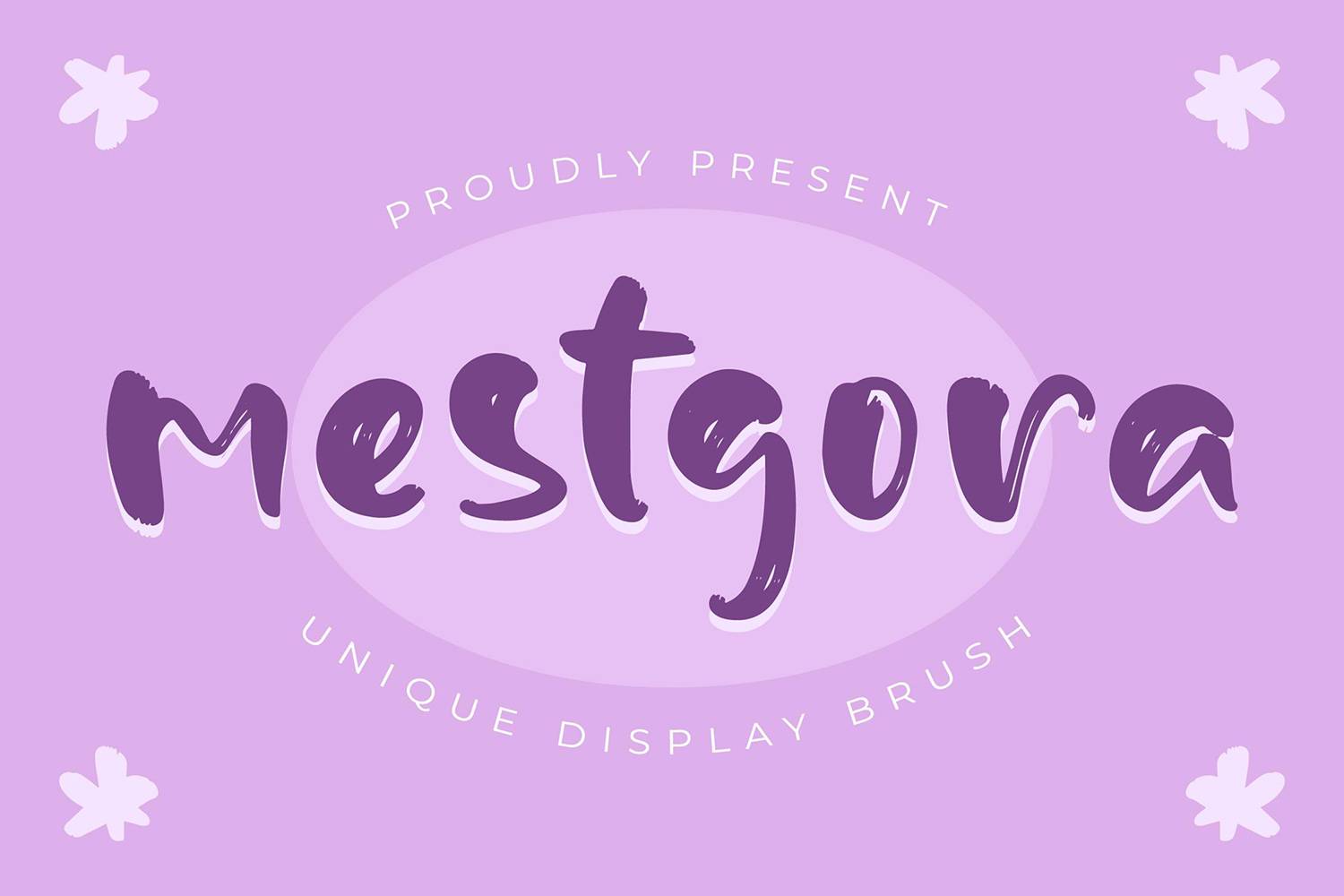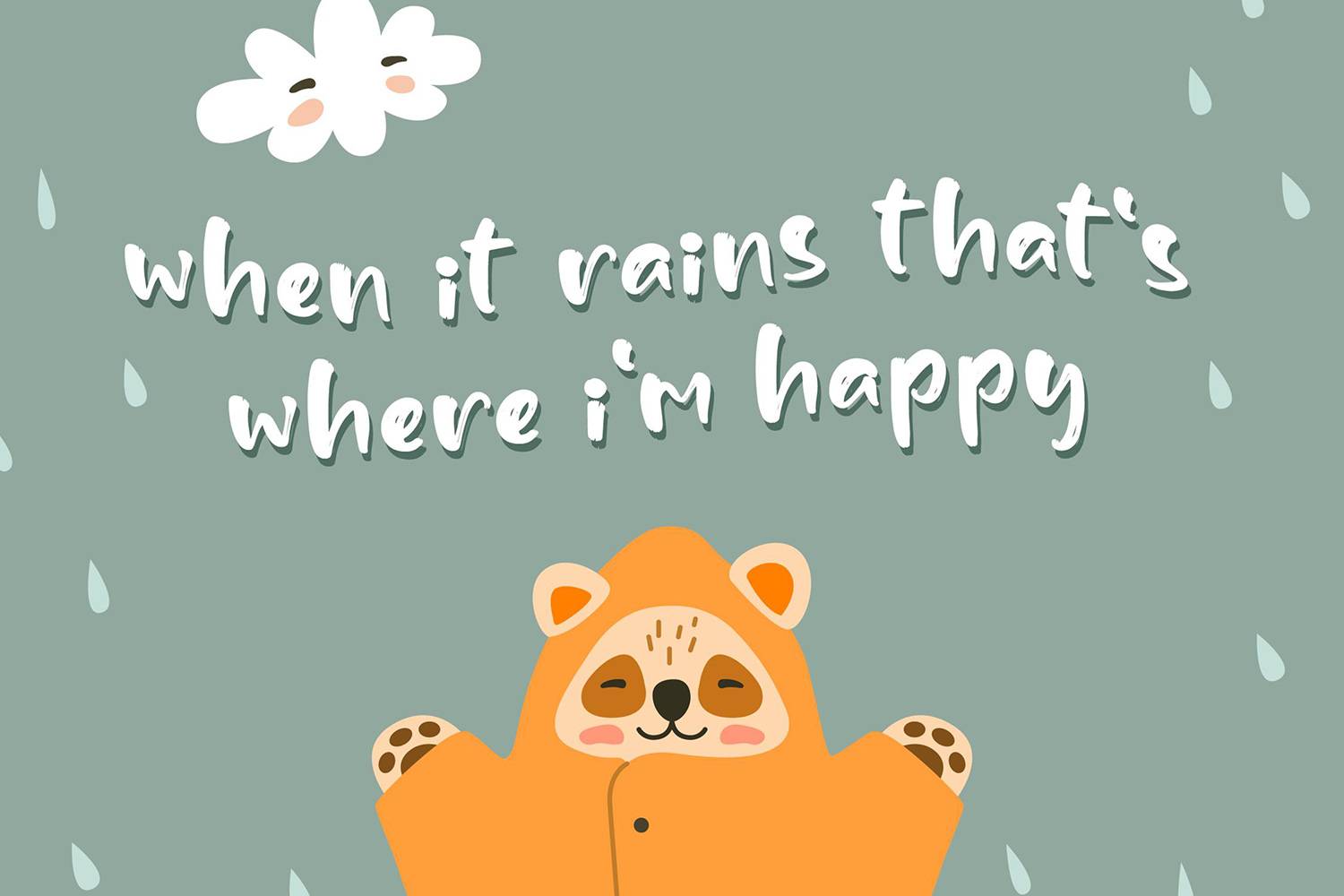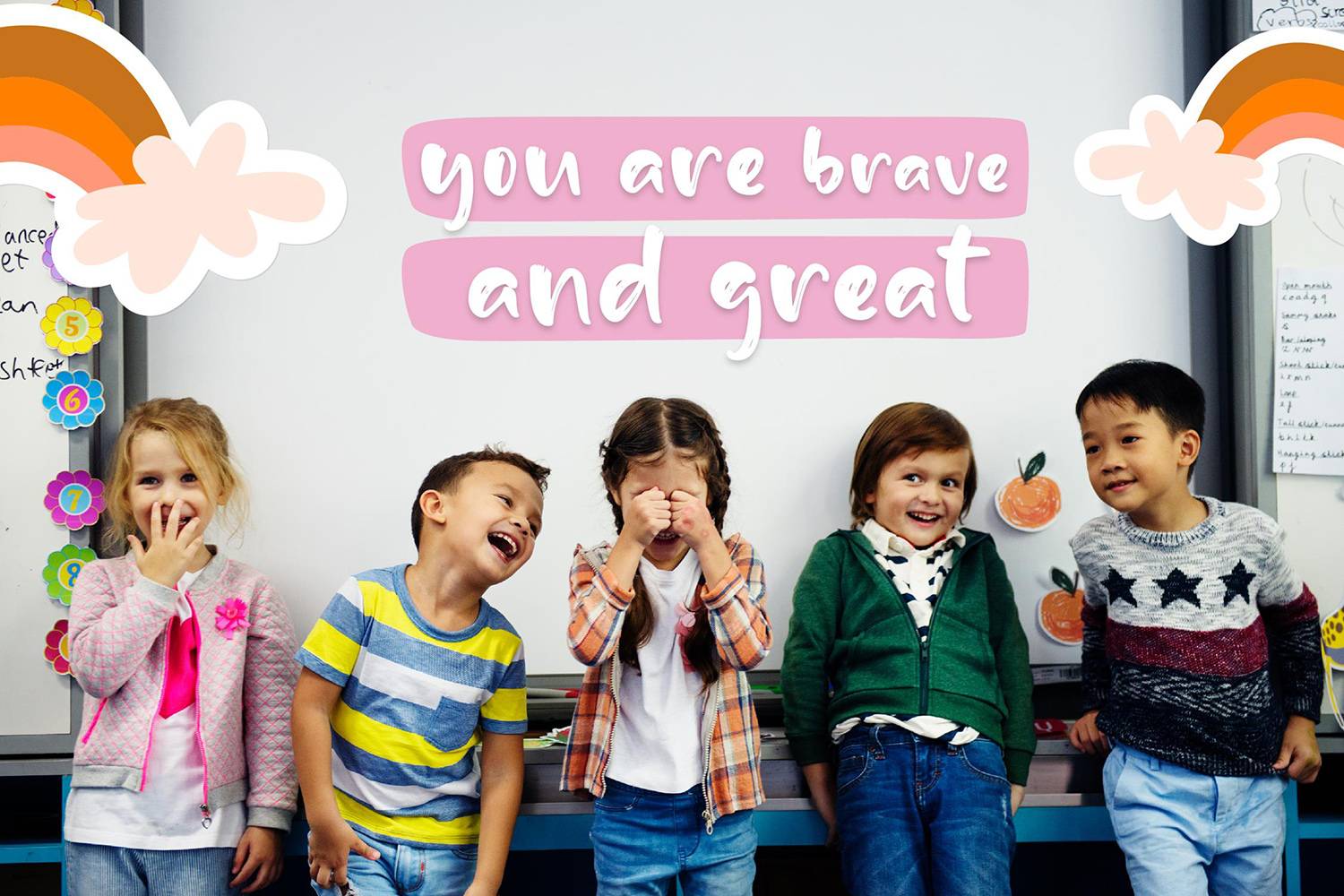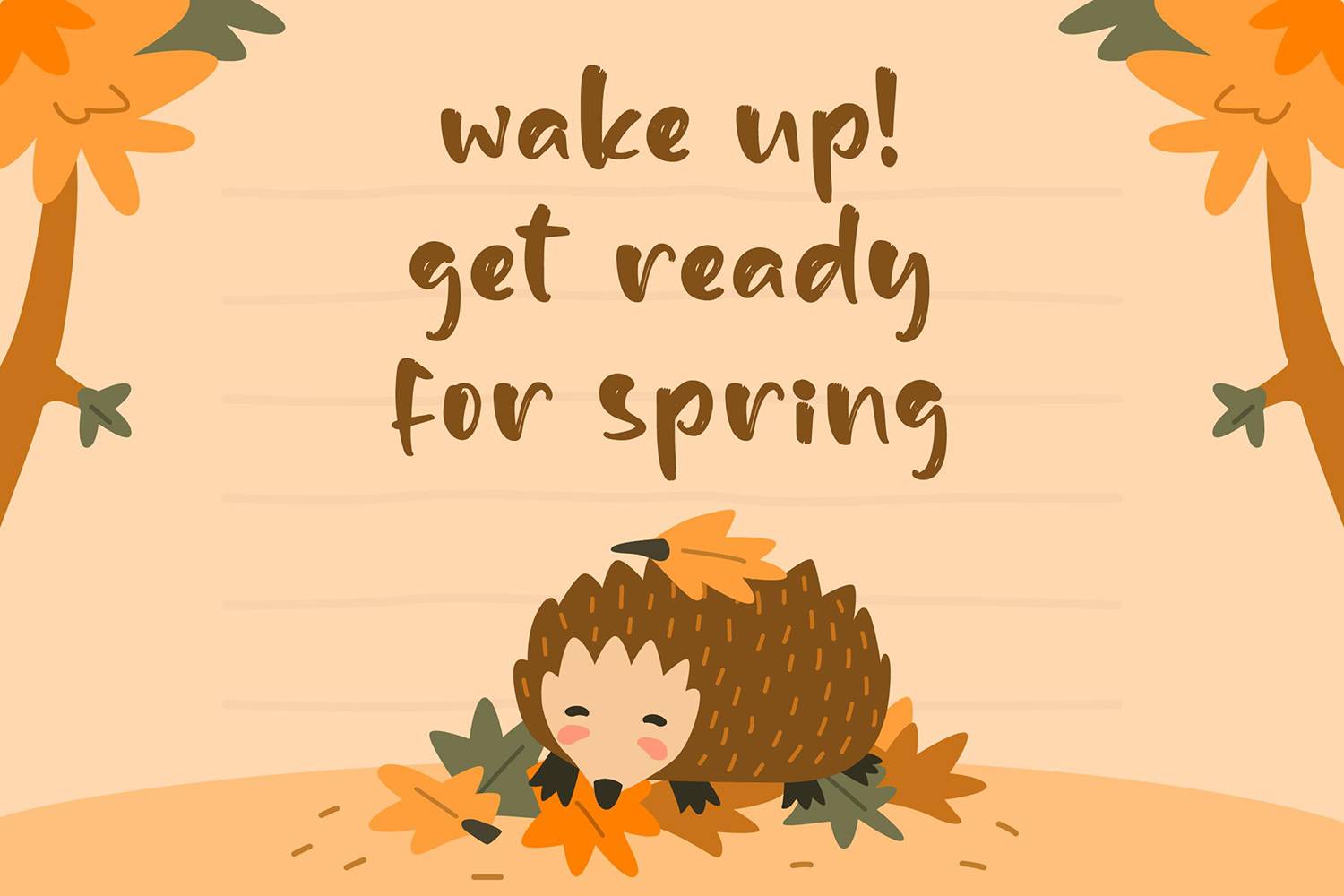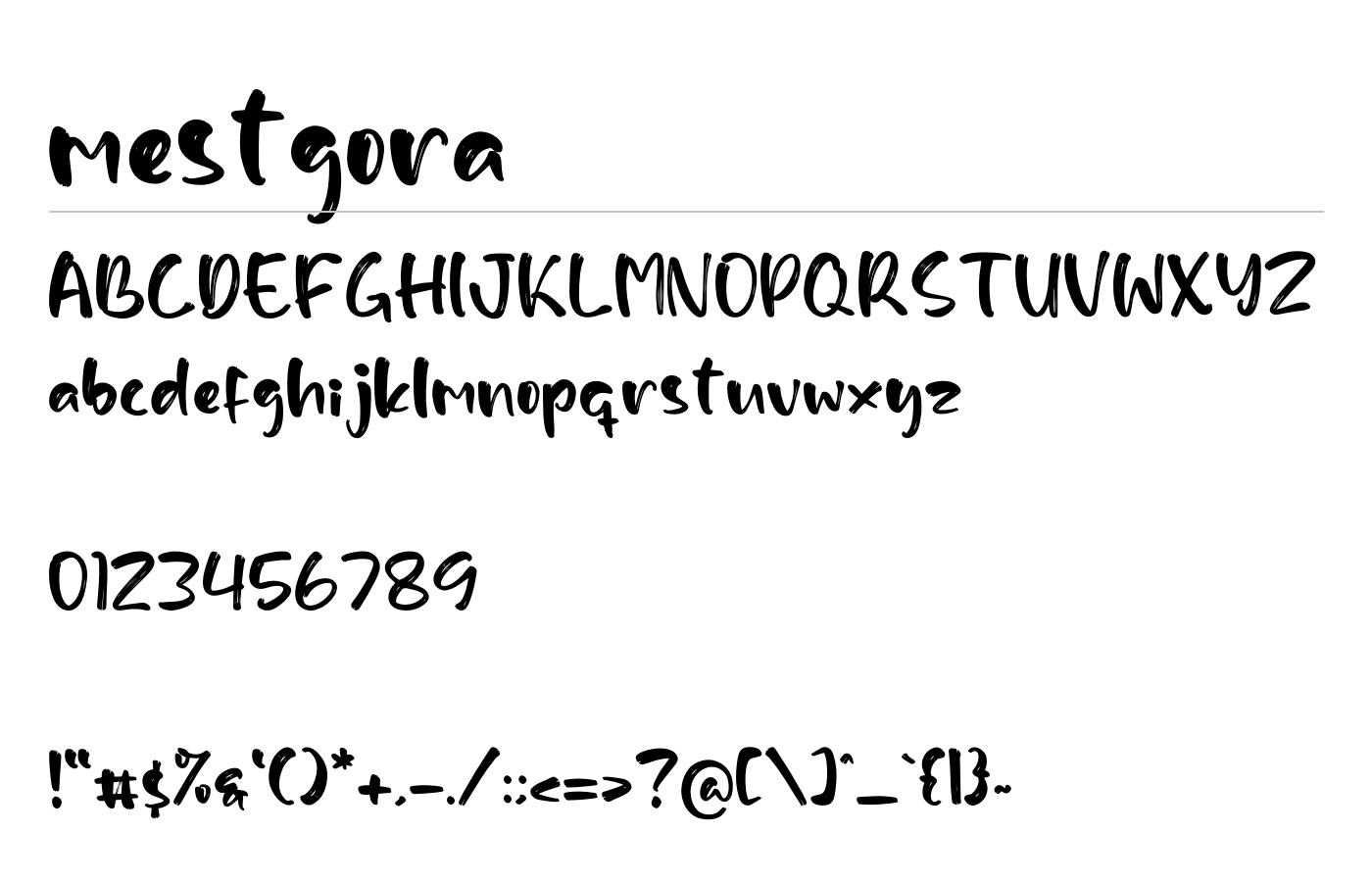
Mestgora is a casual, hand-drawn script font with a bold weight and a lively, organic feel. Its brush-like strokes and slightly irregular shapes give it a warm, friendly personality, making it perfect for playful branding, creative projects, or informal headlines. This font works well where a personal, approachable touch is needed, such as in invitations, logos, or social media graphics.
Mestgora Font
About Mestgora Font